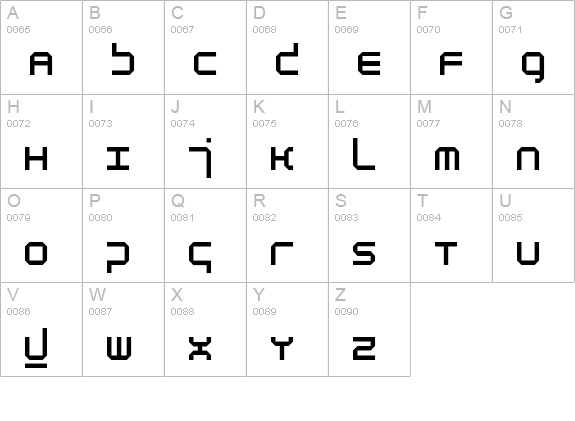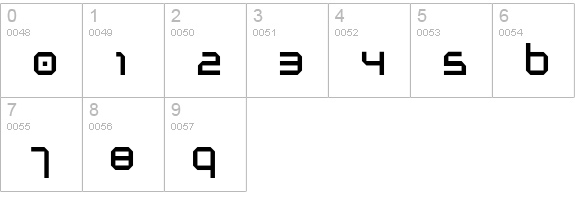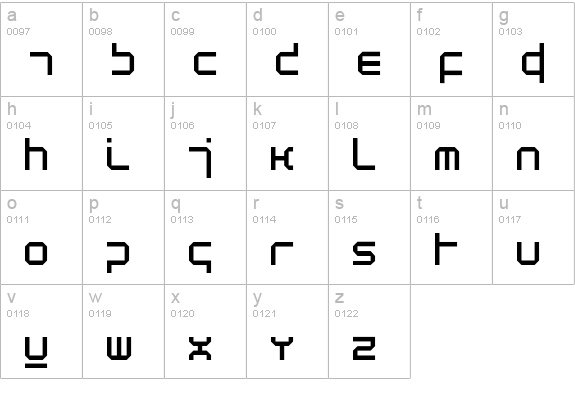
Atmosphere-Regular is the standard, neutral variant in the Atmosphere typeface family \xE2\x80\x94 well suited to general body text, paragraphs, and standard typographic work.
Atmosphere-Regular is a versatile and modern font that exudes elegance and sophistication. With its clean lines and balanced proportions, this font is perfect for a wide range of design projects, from branding to editorial design. The timeless appeal of Atmosphere-Regular makes it a go-to choice for designers looking to add a touch of class to their work. The best part? Atmosphere-Regular is available for free download at FontsMarket.com. This means that you can easily access this high-quality font without breaking the bank. Whether you're a seasoned designer or just starting out, Atmosphere-Regular is sure to elevate your projects and help you achieve professional results. Download it today and add a touch of refinement to your designs!